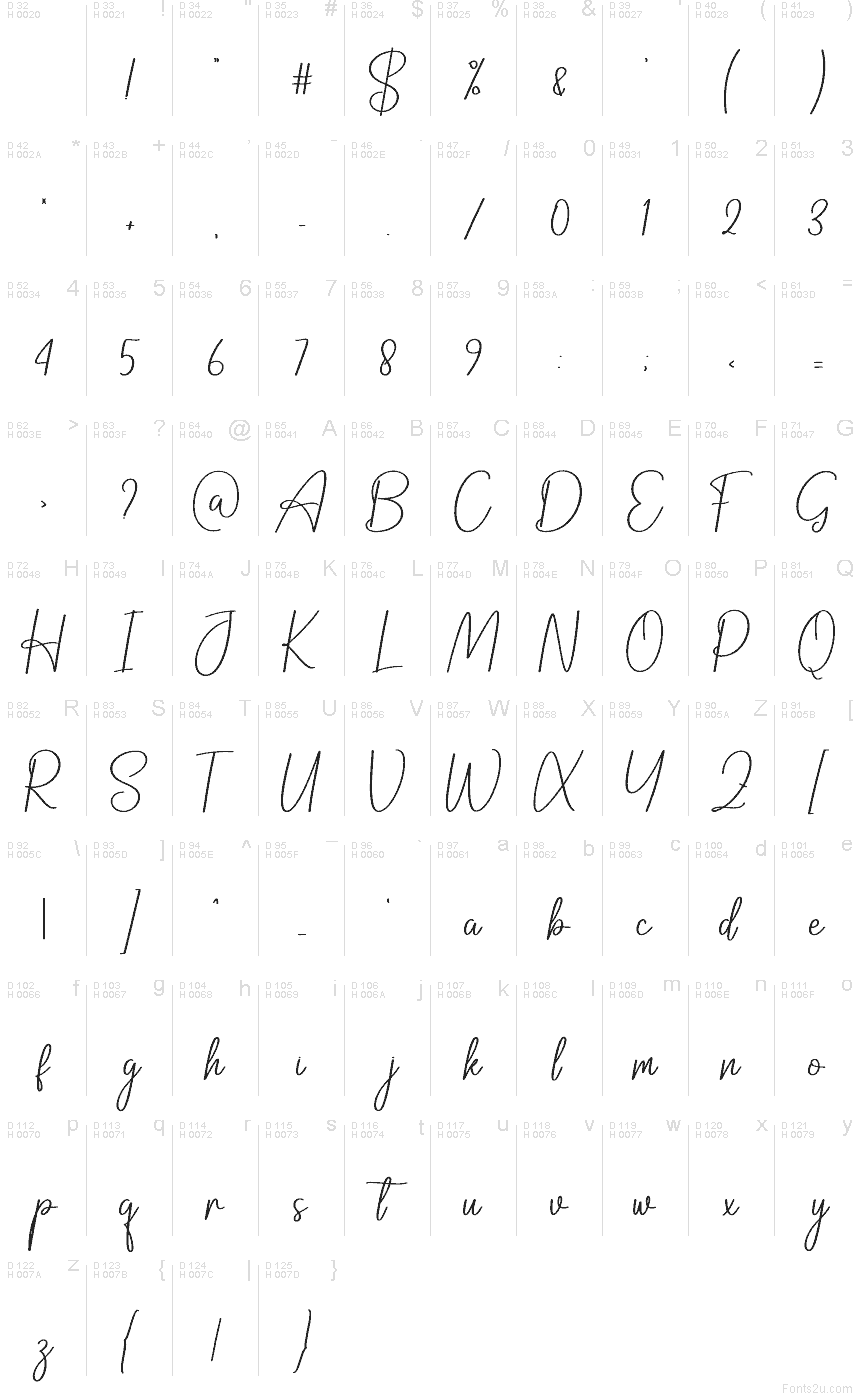
Babyghost
Babyghost font by Scratchones is a free handwritten script typeface with breezy, ink-pen strokes and a light, looping rhythm. Its tall letters and generous curves feel like a quick, joyful note scribbled on smooth paper—playful, but still easy to read. The fine, flowing lines and gentle bounce give Babyghost a soft, whimsical energy that feels equally at home in cute branding and romantic layouts.